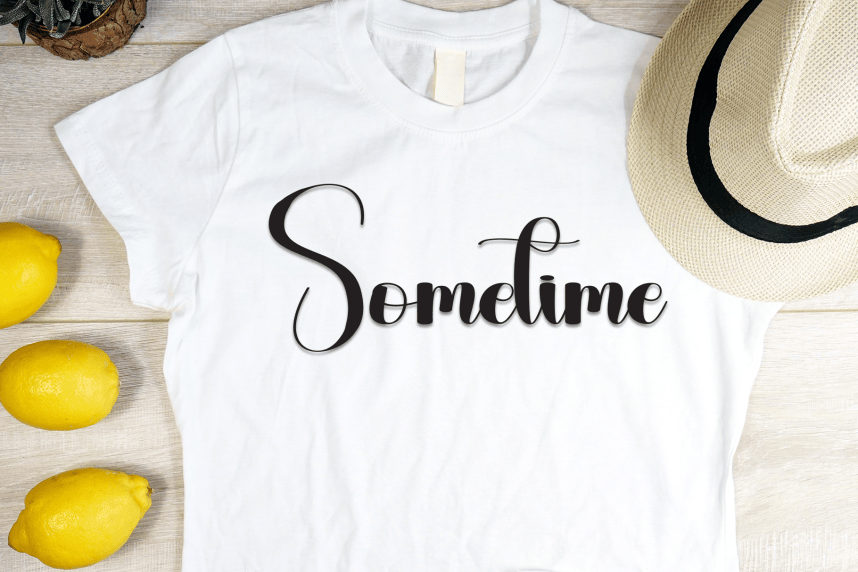
Christmas Gift Calligraphy Font
Christmas Gift Calligraphy Font is a sweet and friendly handwritten display font. Cute and fun, this font is ideal for writing wedding invitations, cards, or any other design that might need a playful touch!